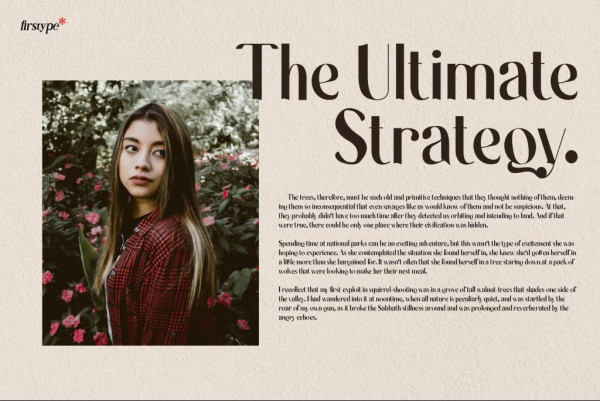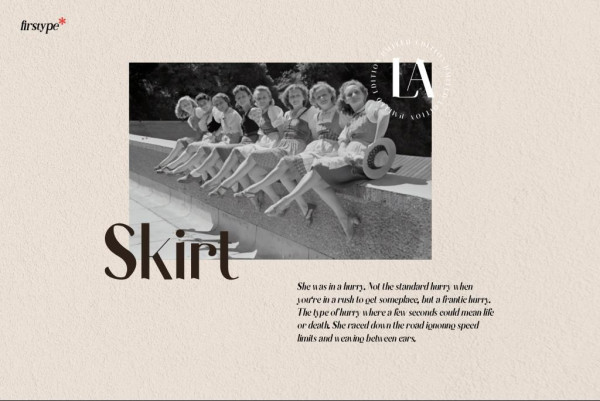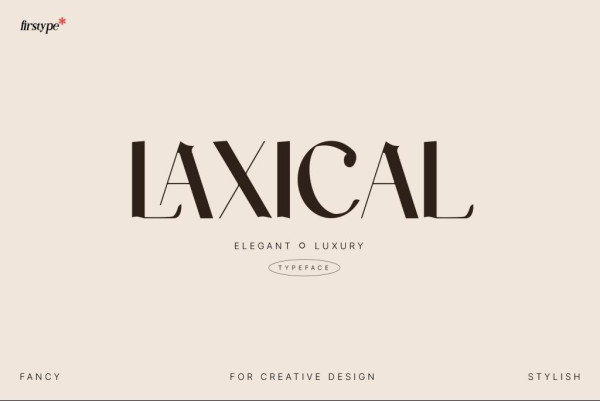
Laxical Font
Laxical Font, an Elegant font. The letters are adorably quirky, creating a modern look and approachable aesthetic. Ideal for comic books, titles, posters, and more, Laxical Font adds a touch of playfulness to any design.